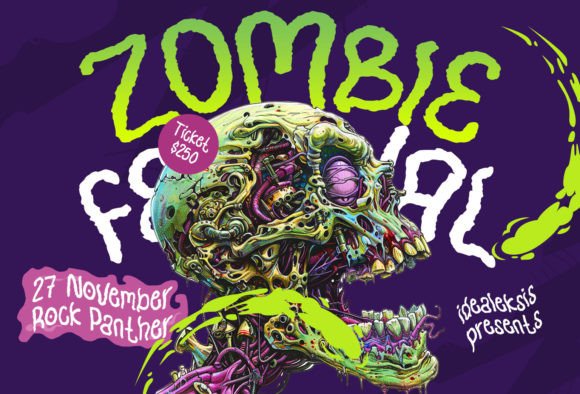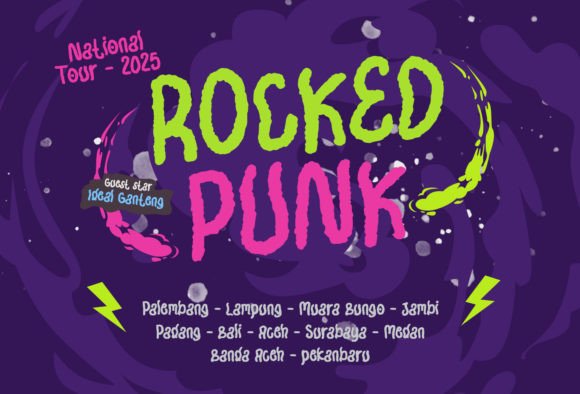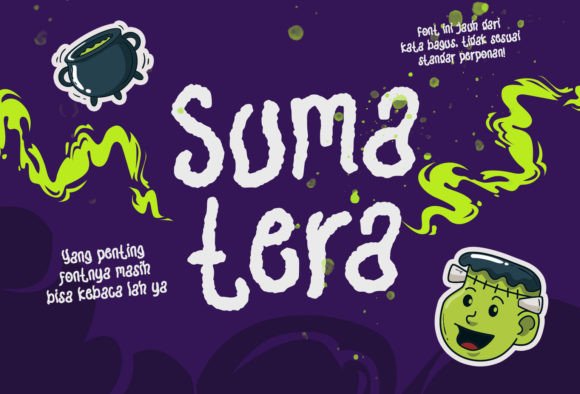
Babyo Font: The Ultimate Game-Changer in Typography
In the world of design, typography plays a vital role in conveying messages, expressing emotions, and creating visual identities. With the ever-evolving landscape of design, it’s essential to stay ahead of the curve with fresh and innovative fonts. Introducing the Babyo Font, a uniquely textured, hand-drawn font that is set to revolutionize the way you approach typography.
Unleashing Creativity with Babyo Font
Babyo Font is a masterpiece of creativity and originality, designed to add a vibrant stroke to your design canvas. This hand-drawn font boasts a distinct texture and character that exudes creativity from every curve and edge. Whether you’re working on art projects, digital designs, or any other creative venture, Babyo Font is the perfect companion to bring your ideas to life.
One of the standout features of Babyo Font is its versatility. This font is designed to cater to diverse design needs, making it an ideal choice for designers, crafters, and artists. From adding a personal touch to your digital landscape to creating stunning visual content for social media, Babyo Font is the ultimate tool to elevate your design game.
The Benefits of Using Babyo Font
- Unique Texture: Babyo Font features a one-of-a-kind texture that adds depth and character to your designs.
- Hand-Drawn: The font’s hand-drawn nature gives it a personal and organic feel, perfect for creating emotional connections with your audience.
- Versatile: Babyo Font can be used across various design platforms, from print to digital, and is suitable for a wide range of creative projects.
- Visually Appealing: The font’s distinct texture and character make it a visually stunning addition to any design.
Exploring Design Possibilities with Babyo Font
Babyo Font is more than just a font – it’s a design companion that encourages exploration and creativity. Whether you’re looking to:
- Create stunning visual content for social media
- Design eye-catching posters and flyers
- Develop a unique brand identity
- Embellish your digital landscape with personalized touches
Babyo Font is the perfect tool to help you achieve your design goals.
Why Choose Babyo Font?
In a world where design trends are constantly evolving, Babyo Font offers a refreshing and innovative approach to typography. Here are just a few reasons why you should consider adding Babyo Font to your design toolkit:
- Stand out from the crowd: With its unique texture and character, Babyo Font helps you create designs that stand out from the crowd.
- Save time: The font’s versatility and ease of use save you time and effort in finding the perfect typography for your project.
- Elevate your brand: Babyo Font helps you create a distinct visual identity that elevates your brand and resonates with your audience.
With Babyo Font, the design possibilities are endless. Join the journey of design exploration and discover the limitless potential of this innovative font.
| Font Name | Babyo Font |
| Author | Idealeksis |